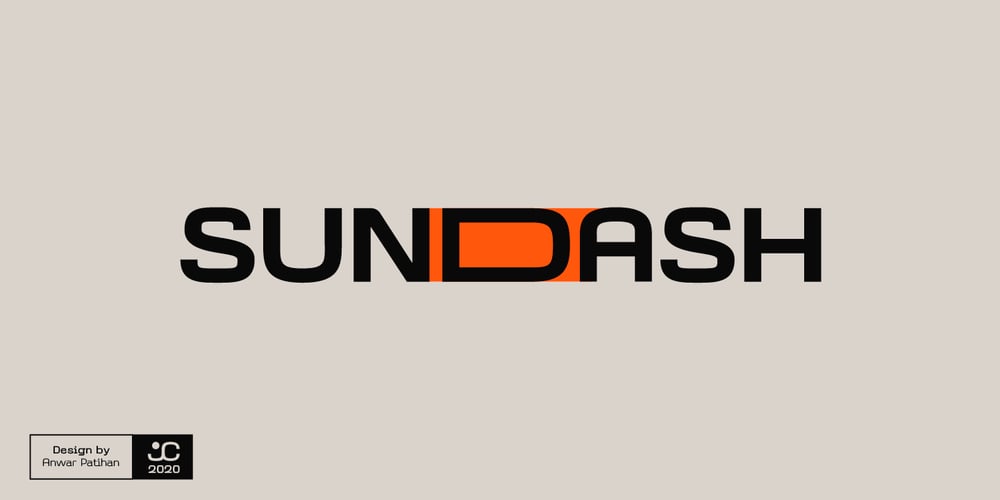
Sundash Font Family was designed by Anwar Patihan and published by Jehoo Creative. Sundash contains 5 styles and family package options. Sundash versatile typeface with wide allternate allcaps.This bold modern font explores the style of Allcaps, we add a wide character to make it look more flexible. based on forms inspired by free urban culture, Sundash has a modern and vibrant spirit. Sundash explores how the shapes and curves of letters change their Focus. This font has a variable weight of 5 Light, regular, medium, bold, extrabold to make the sundash more solid.Sundash has 247 glypghs with a unique and bold character perfectly suited for a wide variety of applications from editorial design to branding, advertising, publications and digital.